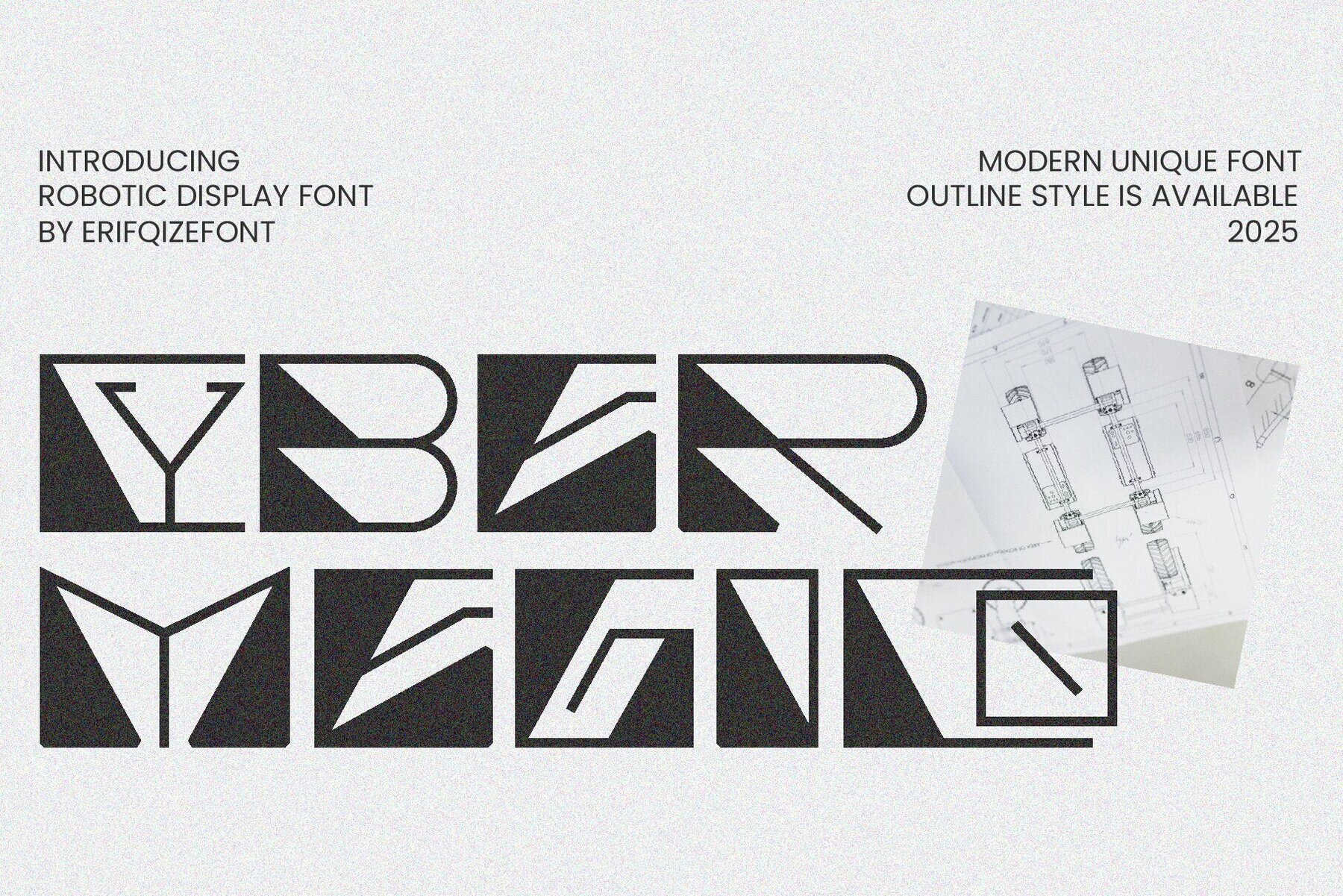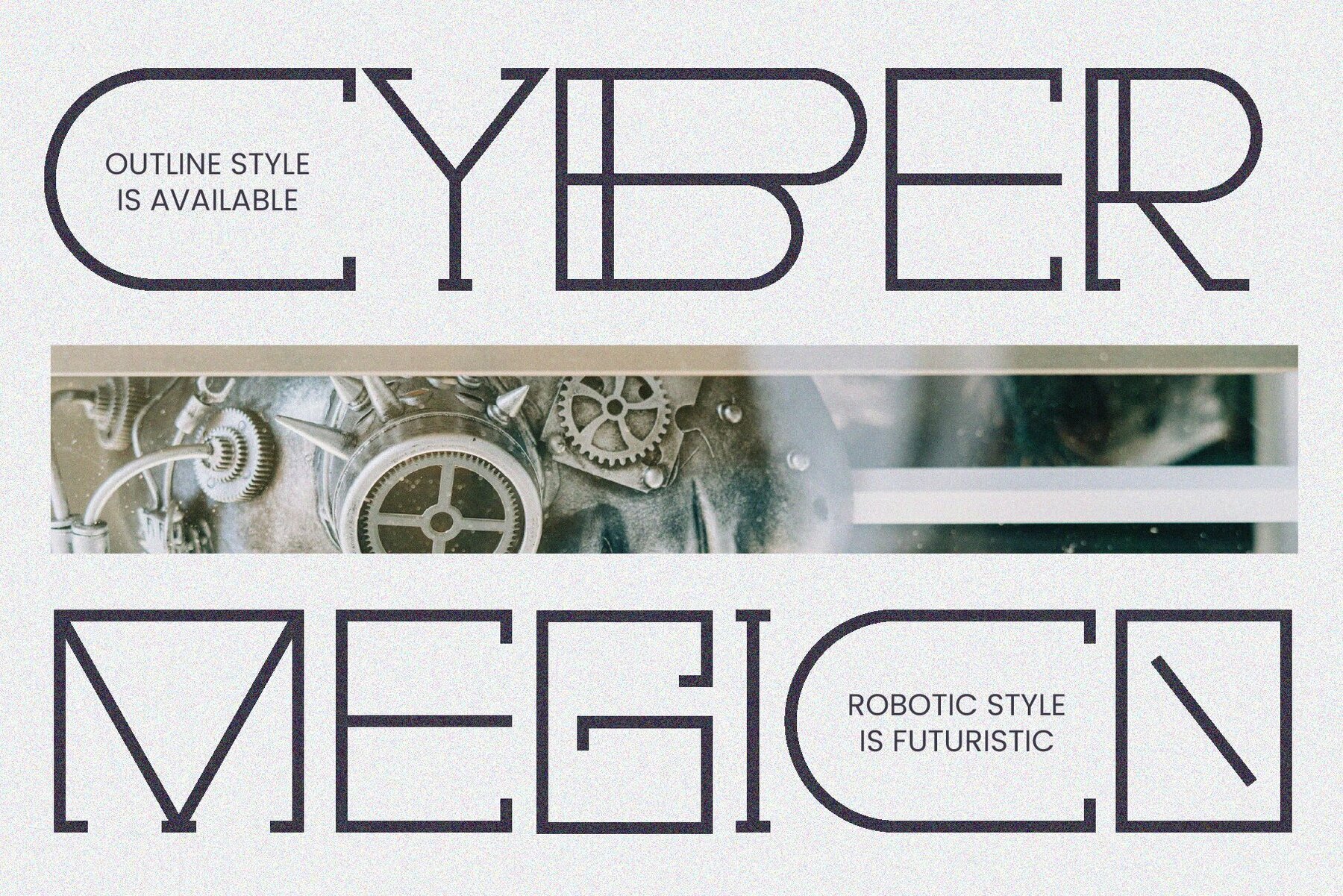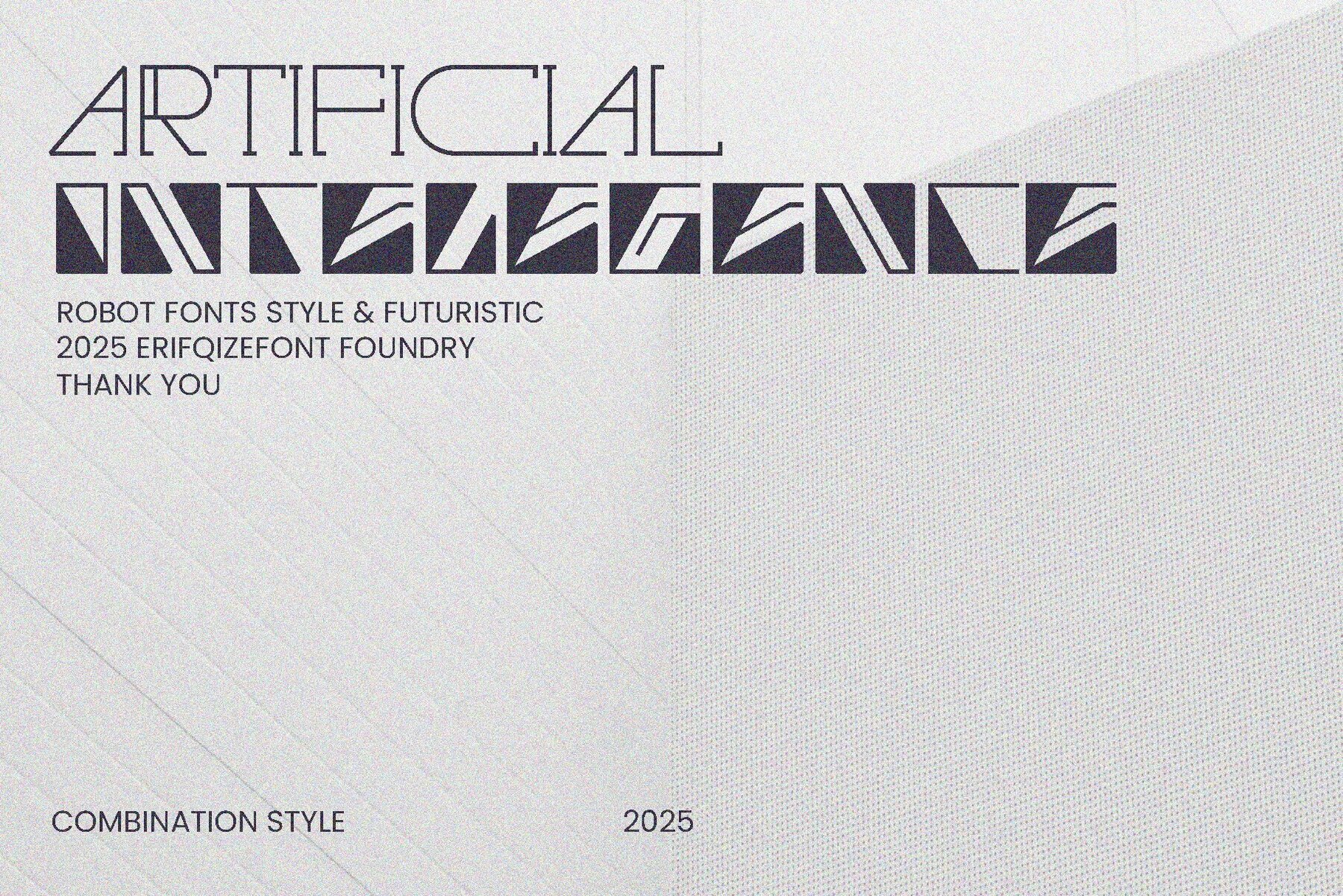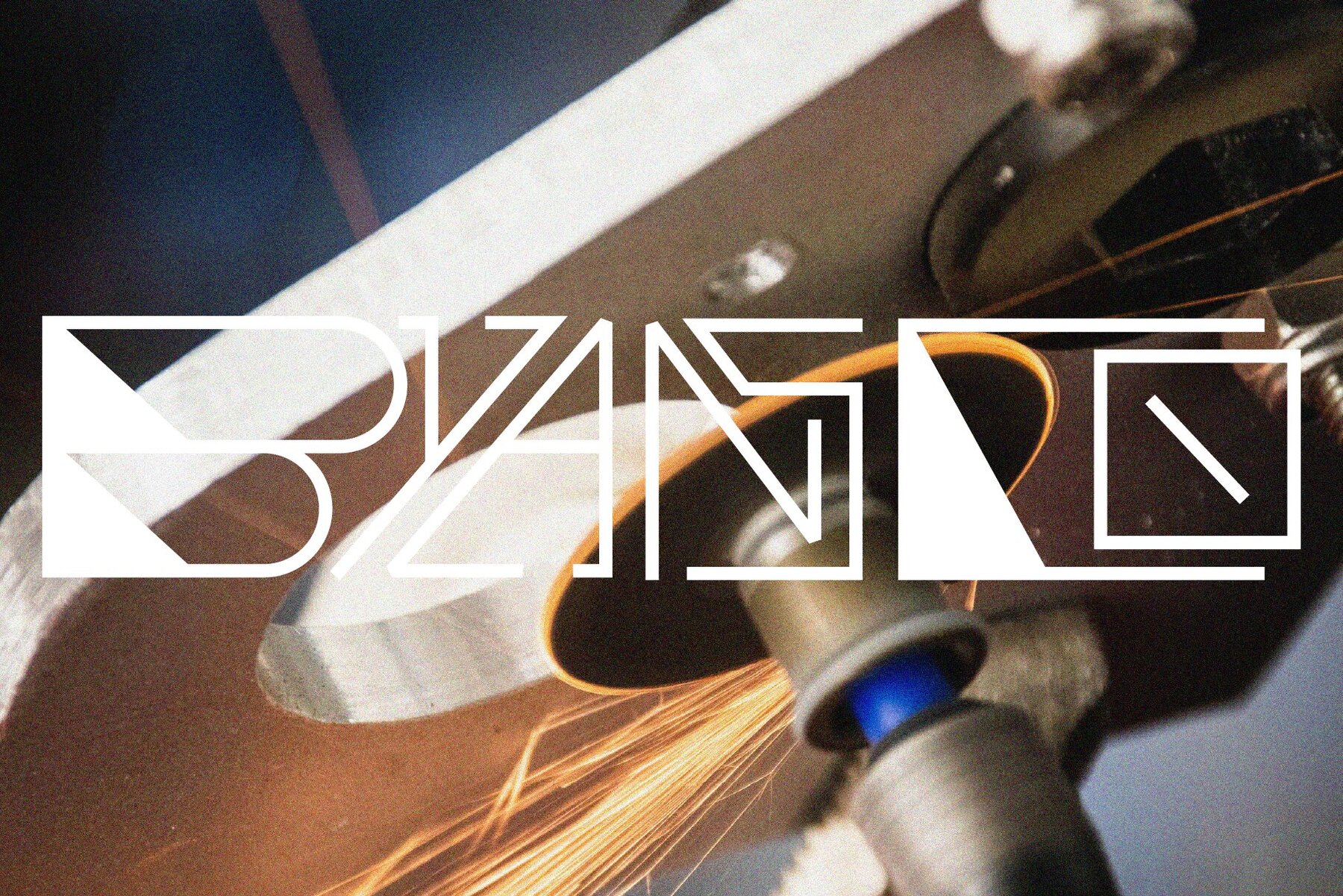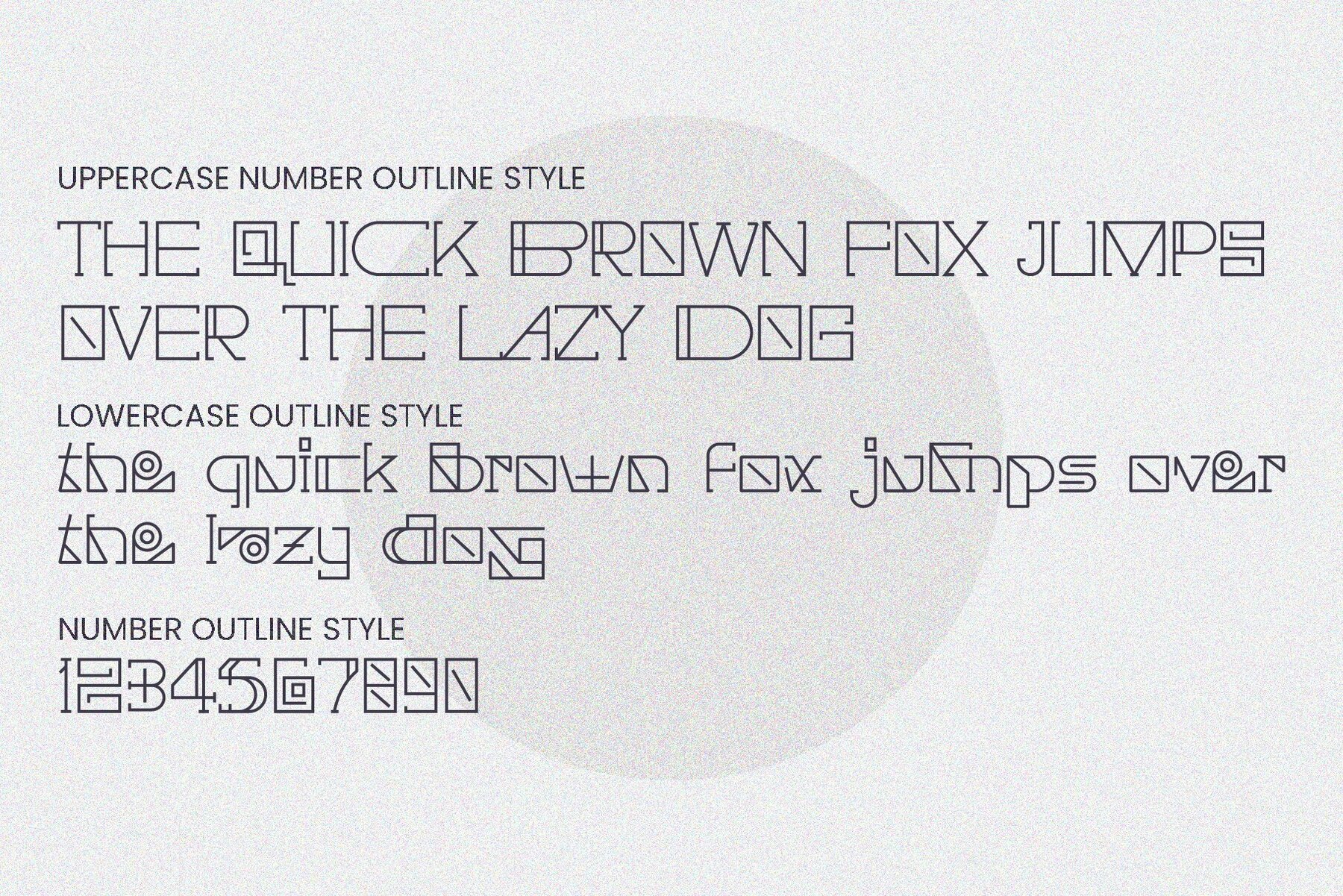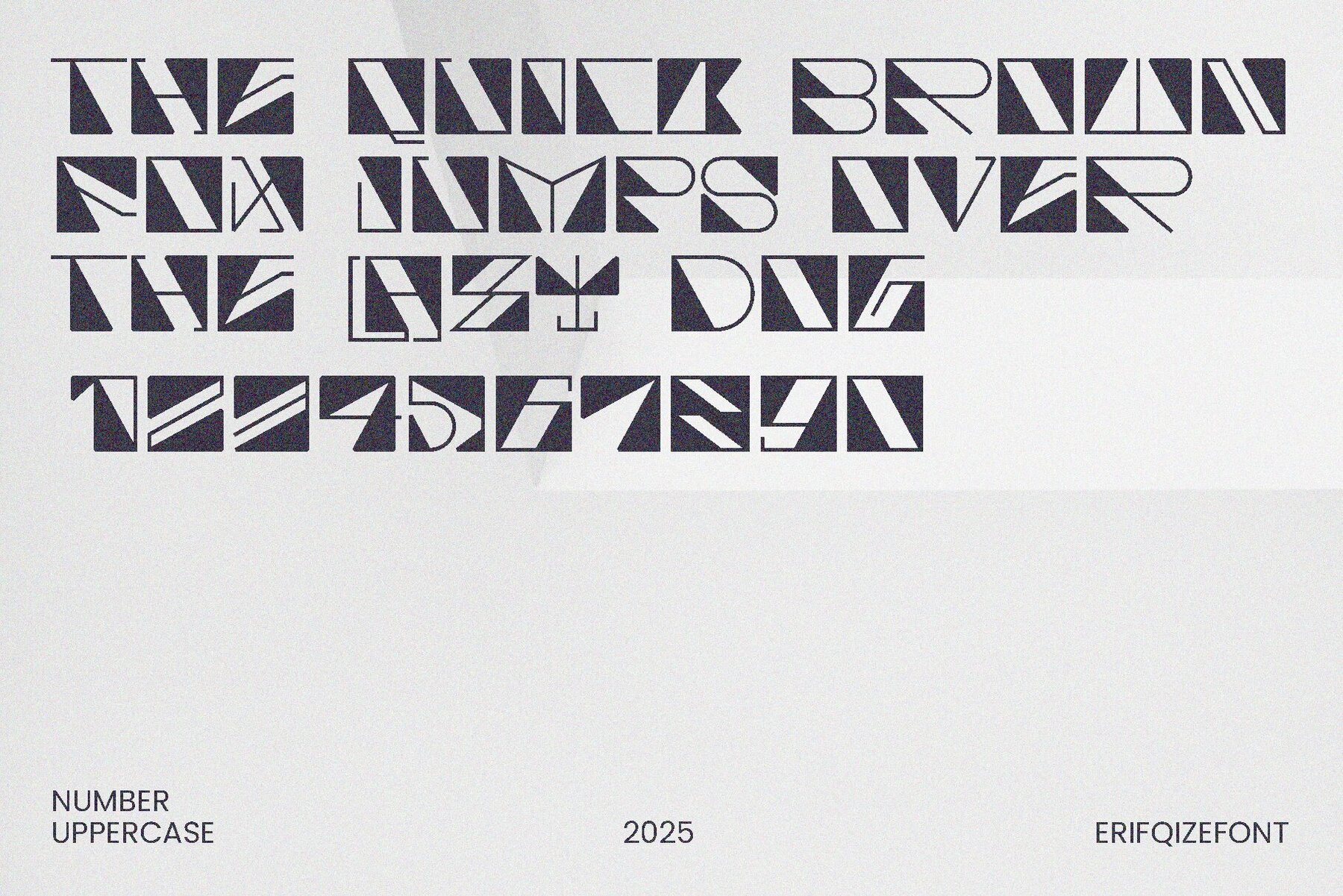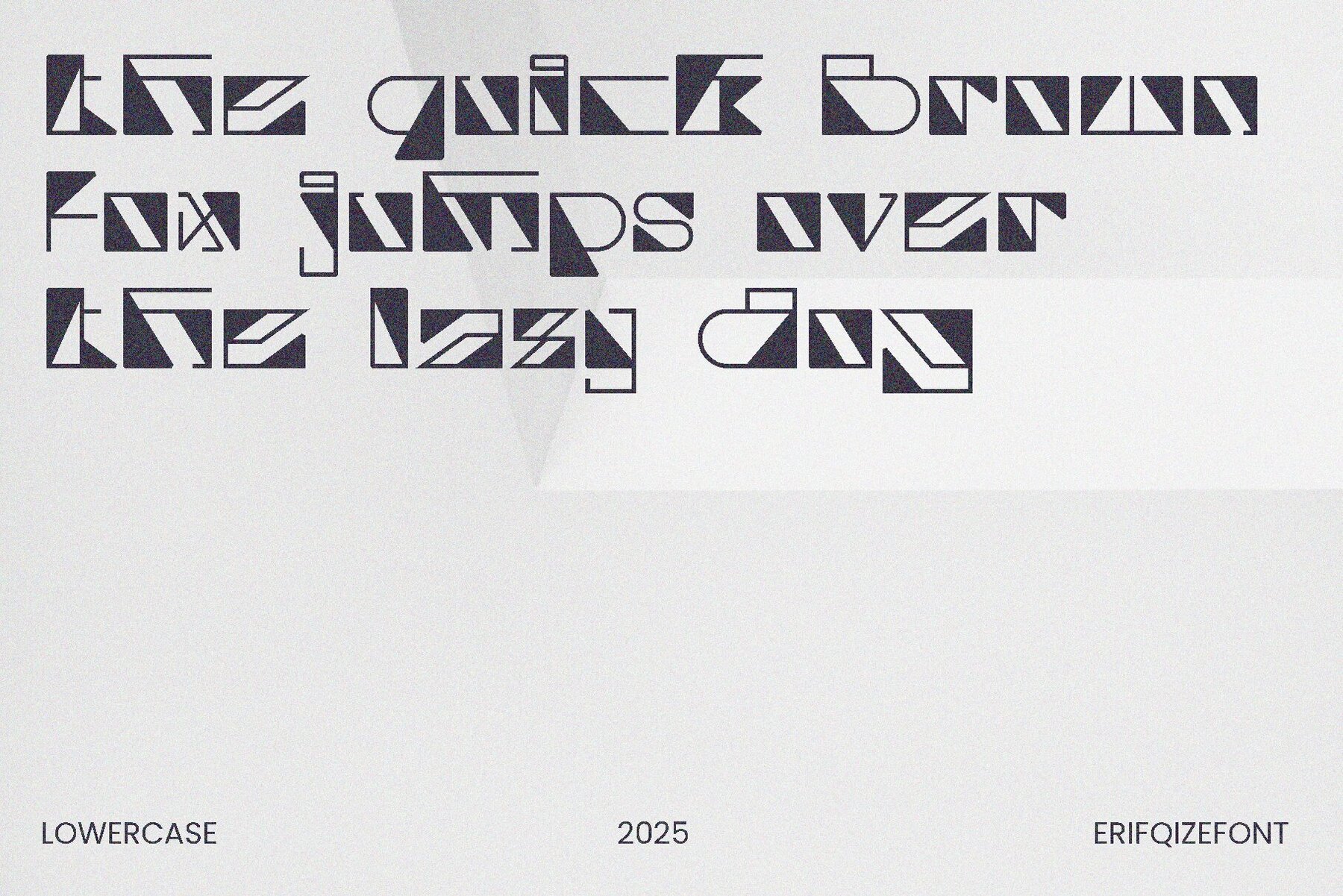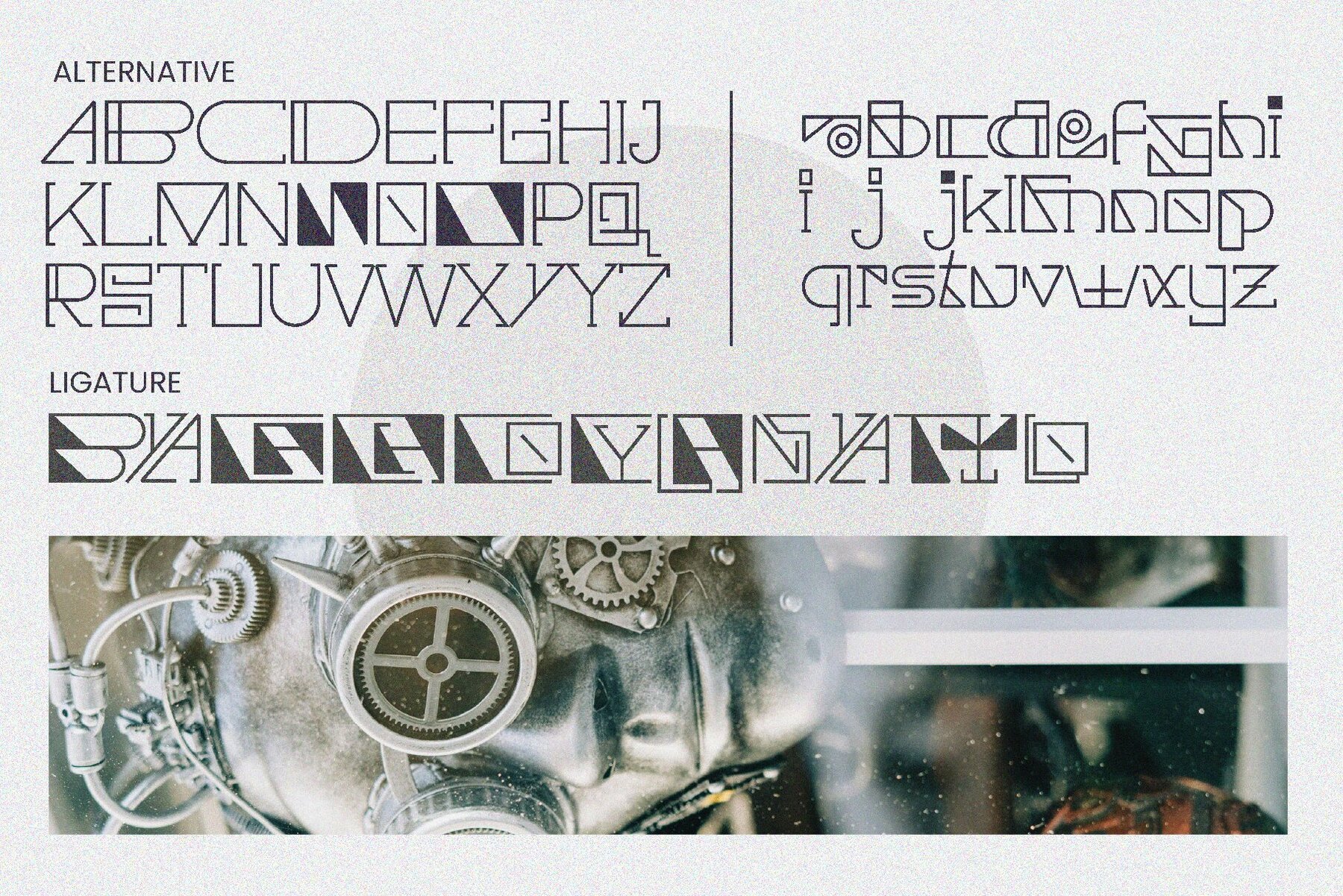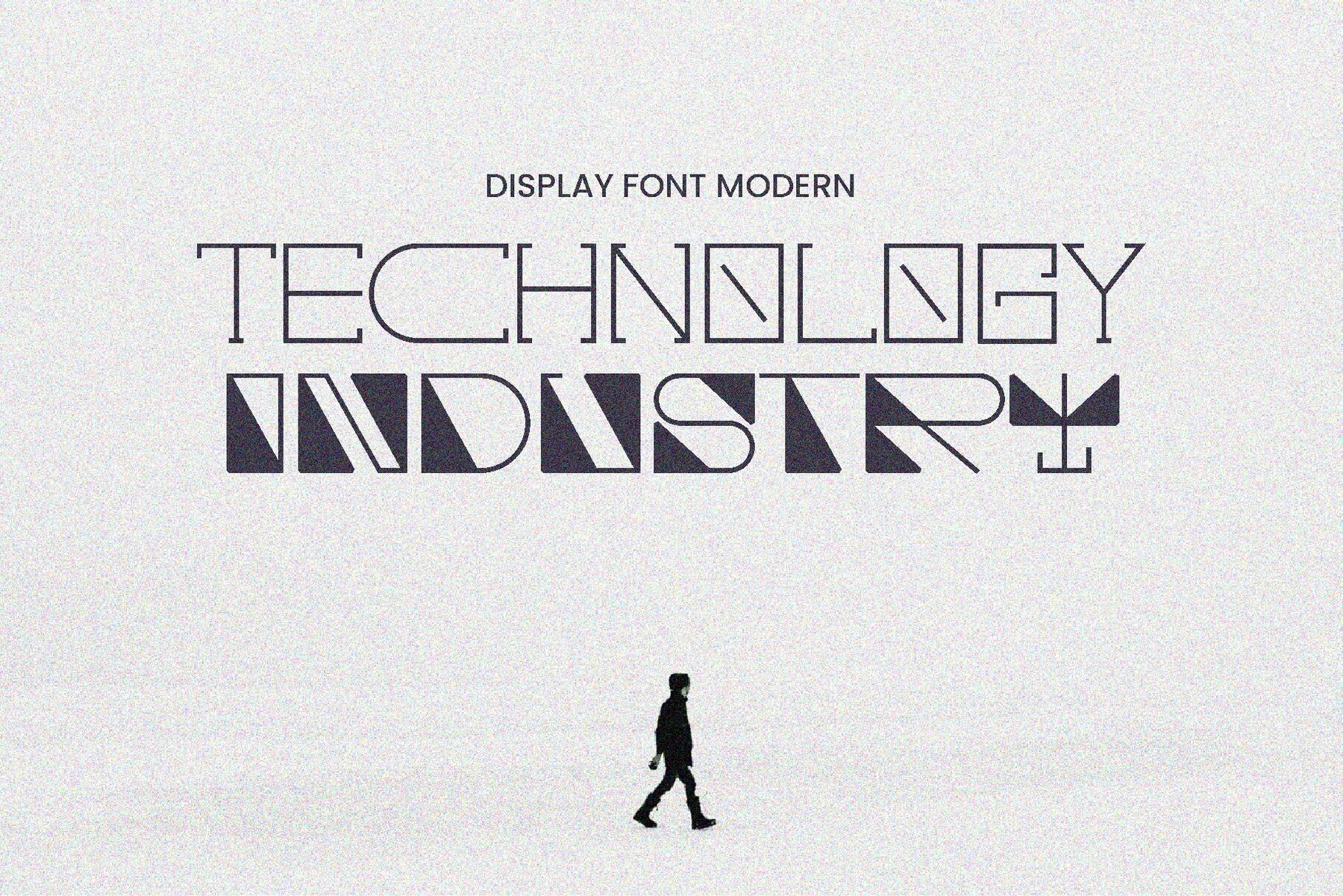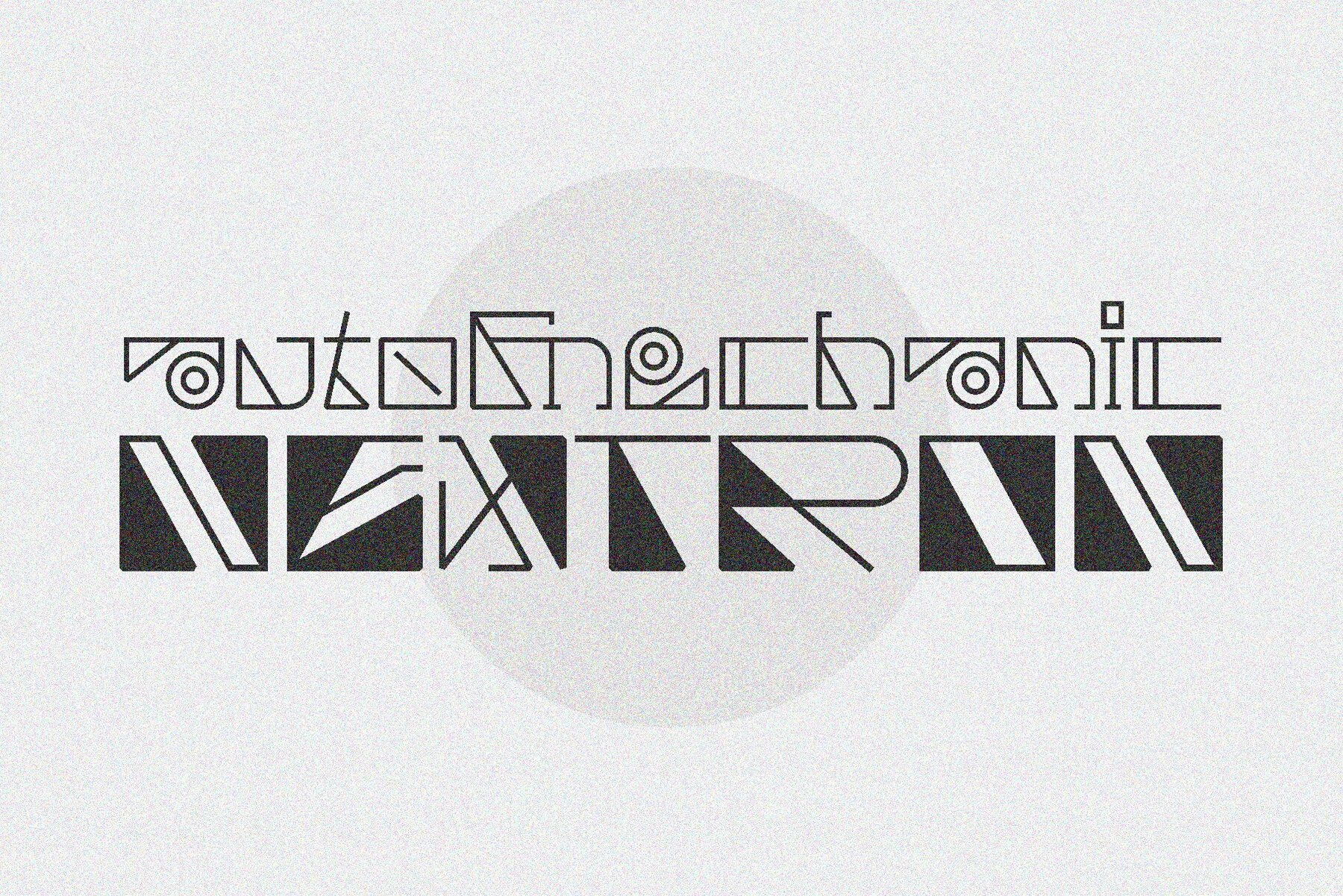
Cyber Megico Font
Cyber Megico
Cyber Megico OUTLINE
Immerse yourself in tomorrow's world with Cyber Megico, a bold and modern typeface characterized by its robotic themes. Its sleek, futuristic aesthetic is ideal for tech-centric projects demanding both visual impact and innovative expression. Cyber Megico is available in two styles—Regular and Outline—that can be combined for a dynamic and layered visual experience. Enhanced by ligatures and alternate characters, it offers versatility for applications ranging from logos to sci-fi posters, gaming titles, and digital branding. Featuring multilingual character support, Cyber Megico ensures your message is conveyed with style and precision across global audiences. What's Included:Cyber Megico: Futuristic Robotic Typeface